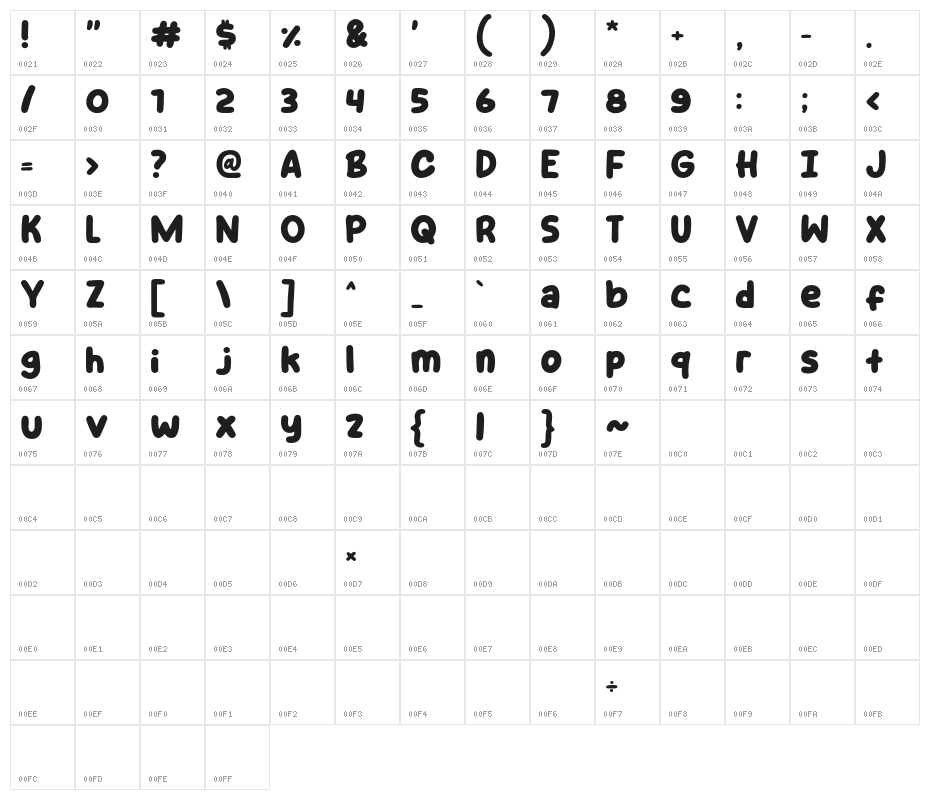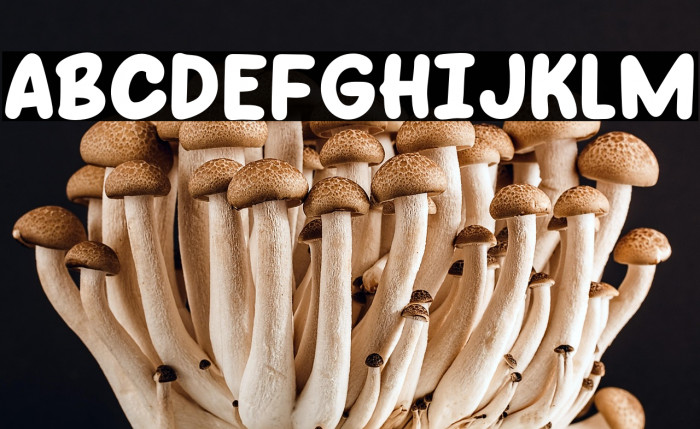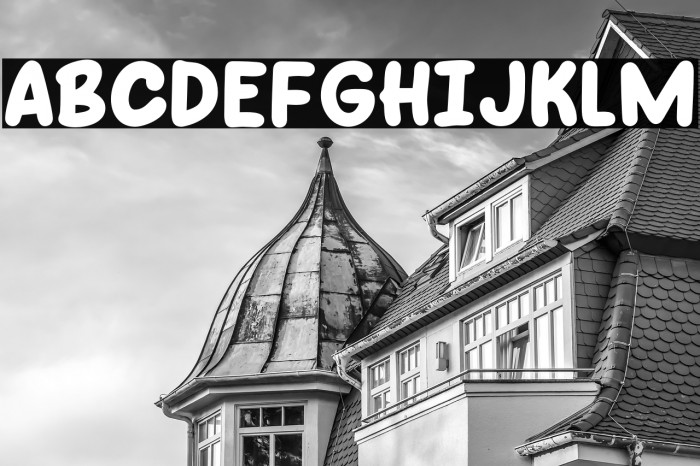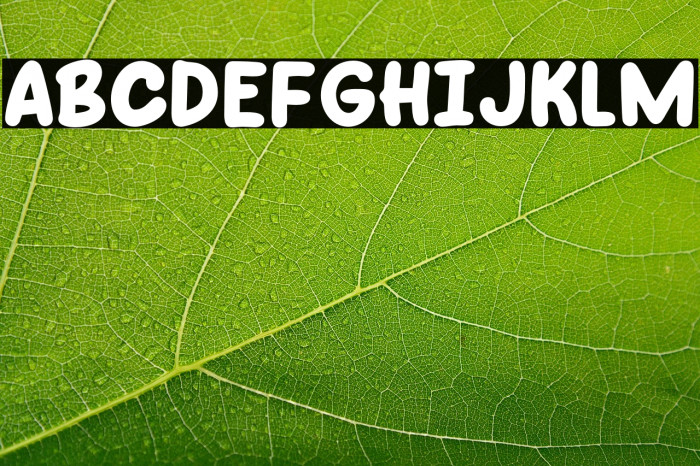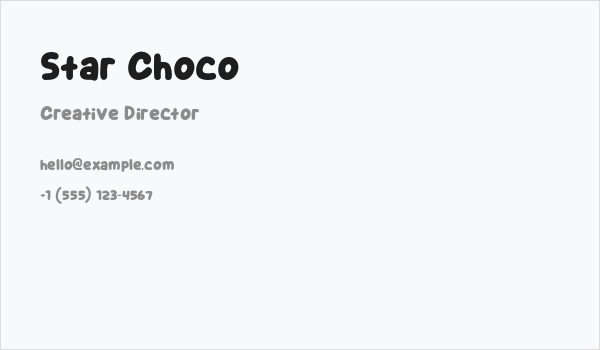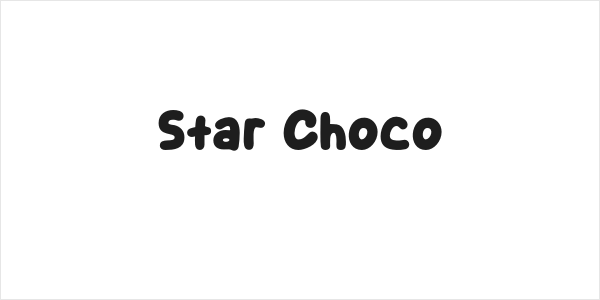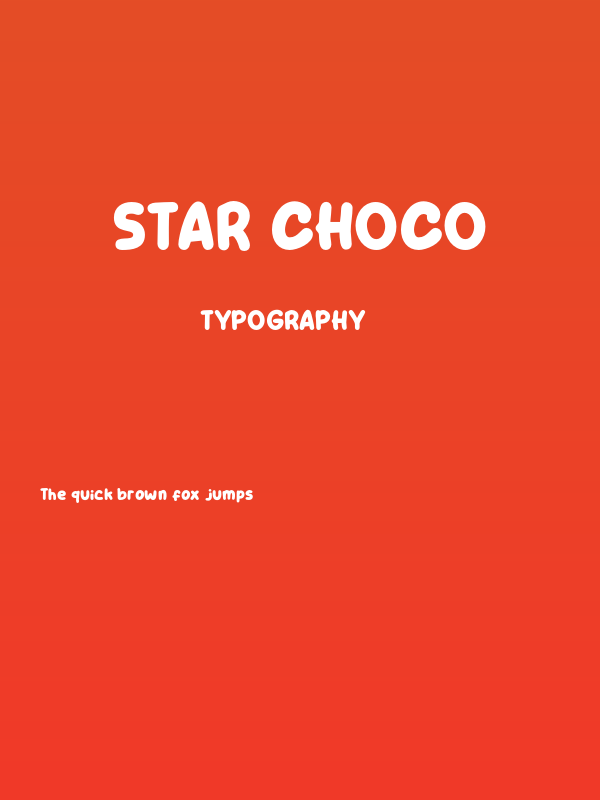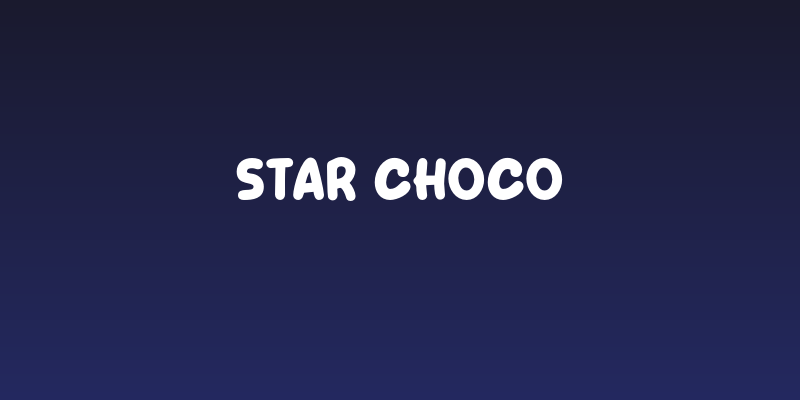
Star Choco Font
Star Choco Description
This playful and bold font features rounded, thick strokes that give it a friendly and approachable appearance. The characters are uniformly wide, with a consistent weight that maintains readability while adding a touch of whimsy. The uppercase and lowercase letters are well-balanced, and the numerals are clear and distinct. Special characters are included, maintaining the same playful style. This font is perfect for projects that require a fun and engaging look, such as children's books, playful branding, or casual invitations.
| Overall Style | Playful |
| Proposed Projects | Children's books, playful branding, casual invitations, posters, and social media graphics. |